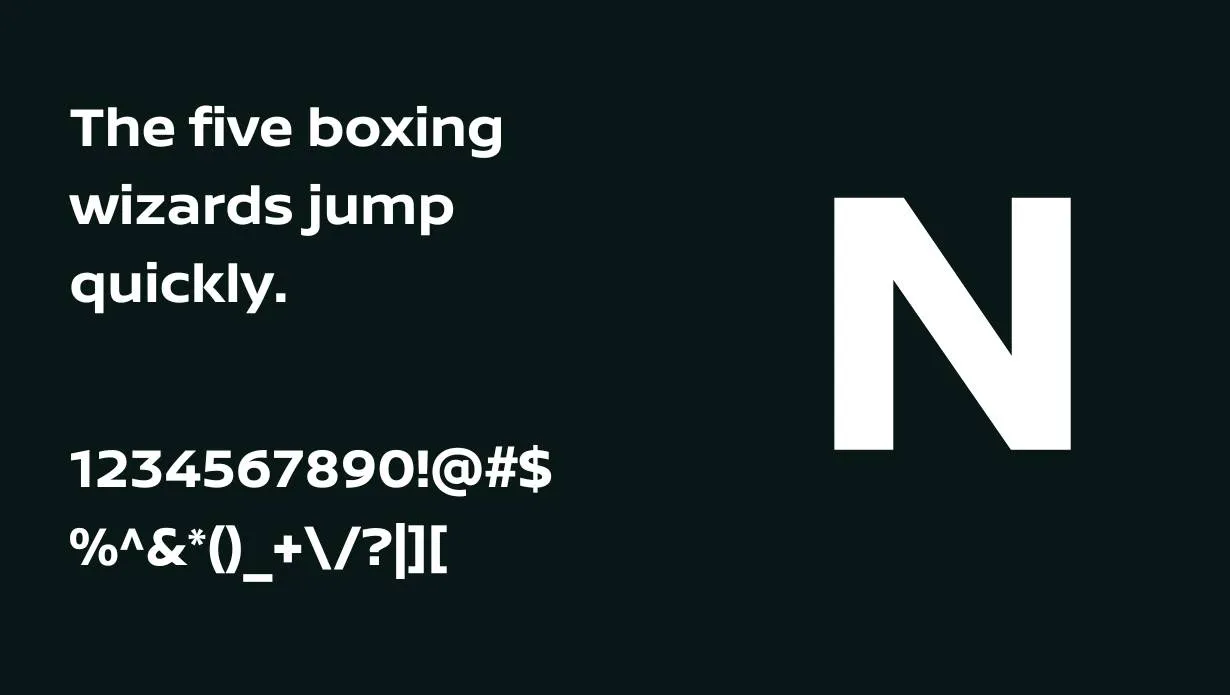
The Nissan brand font is a distinctive style of writing that represents the visual identity of the Nissan company. It plays a crucial role in creating brand recognition, appearing on various platforms like car badges, advertisements, and digital media. OPTIFONT designed it.
The sleek and modern design of the Nissan font reflects the innovation and sophistication associated with the brand, contributing to a consistent and memorable brand image.
View of Nissan Brand Font
Font Family
- Nissan Brand Regular
- Nissan Brand ExtraLight
- Nissan Brand Light
- Nissan Brand Book
Nissan Brand Font Info
Name | Nissan Brand Font |
Designer | Nissan Motor |
Style | Sans Serif |